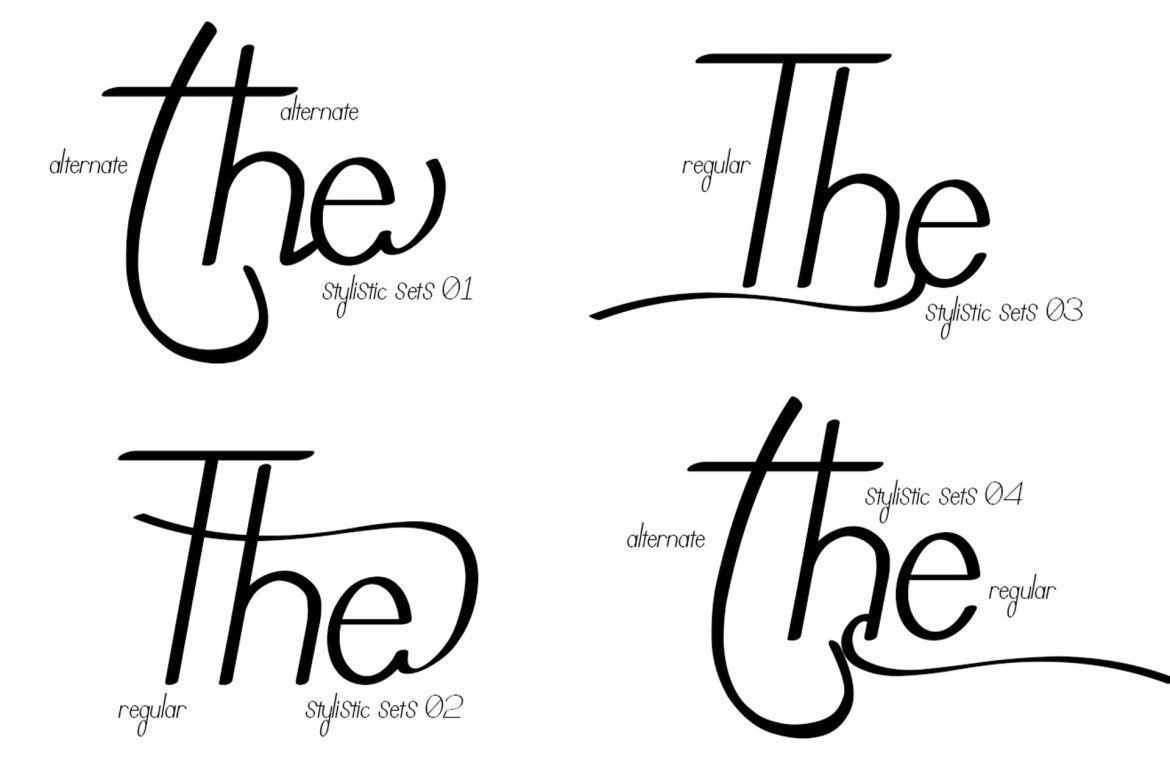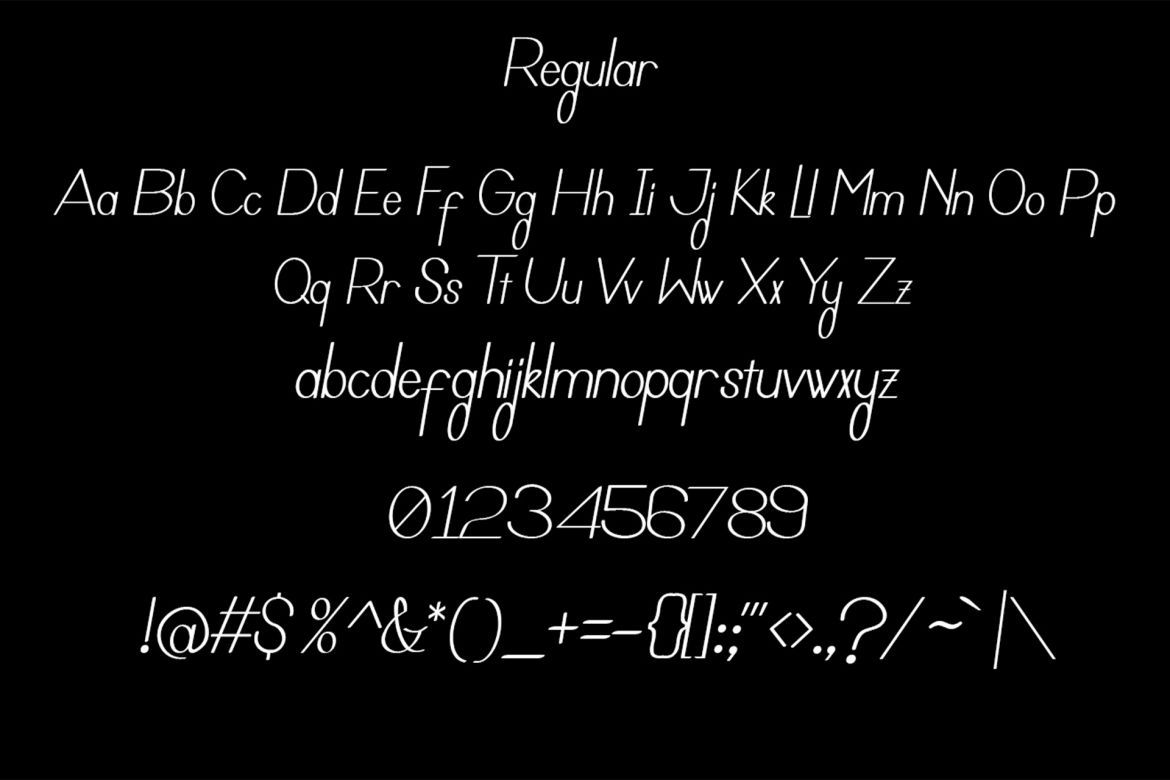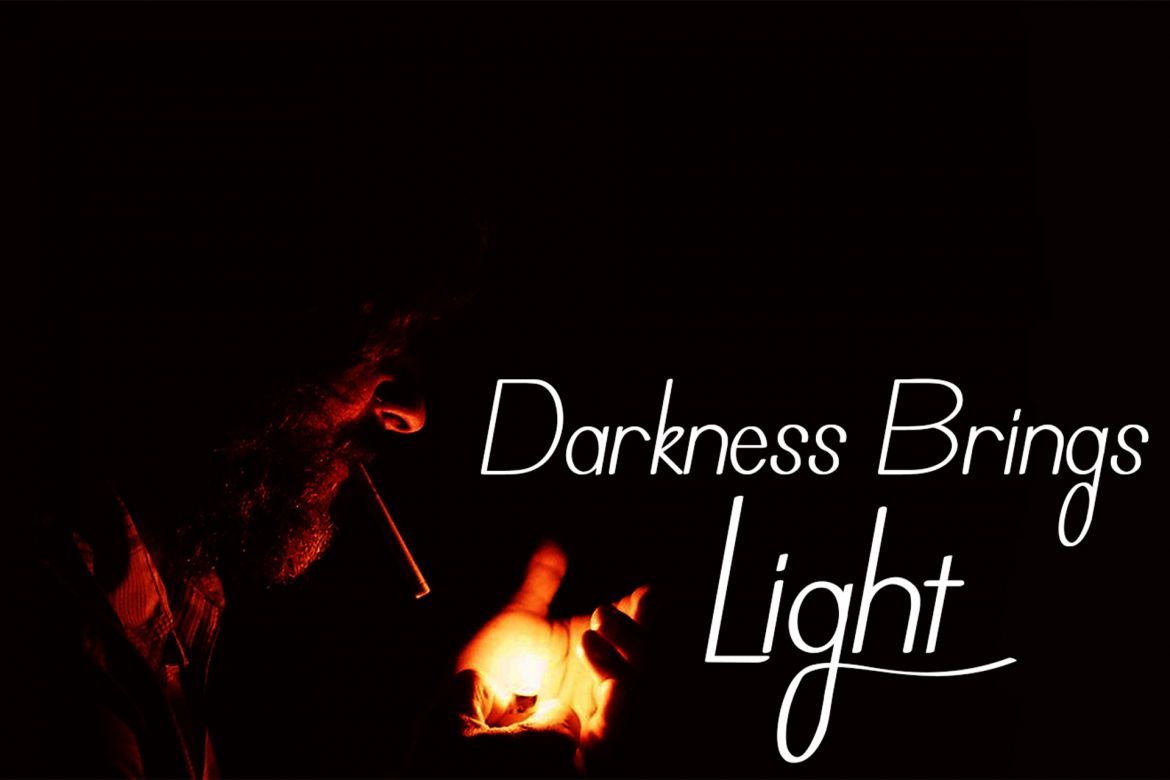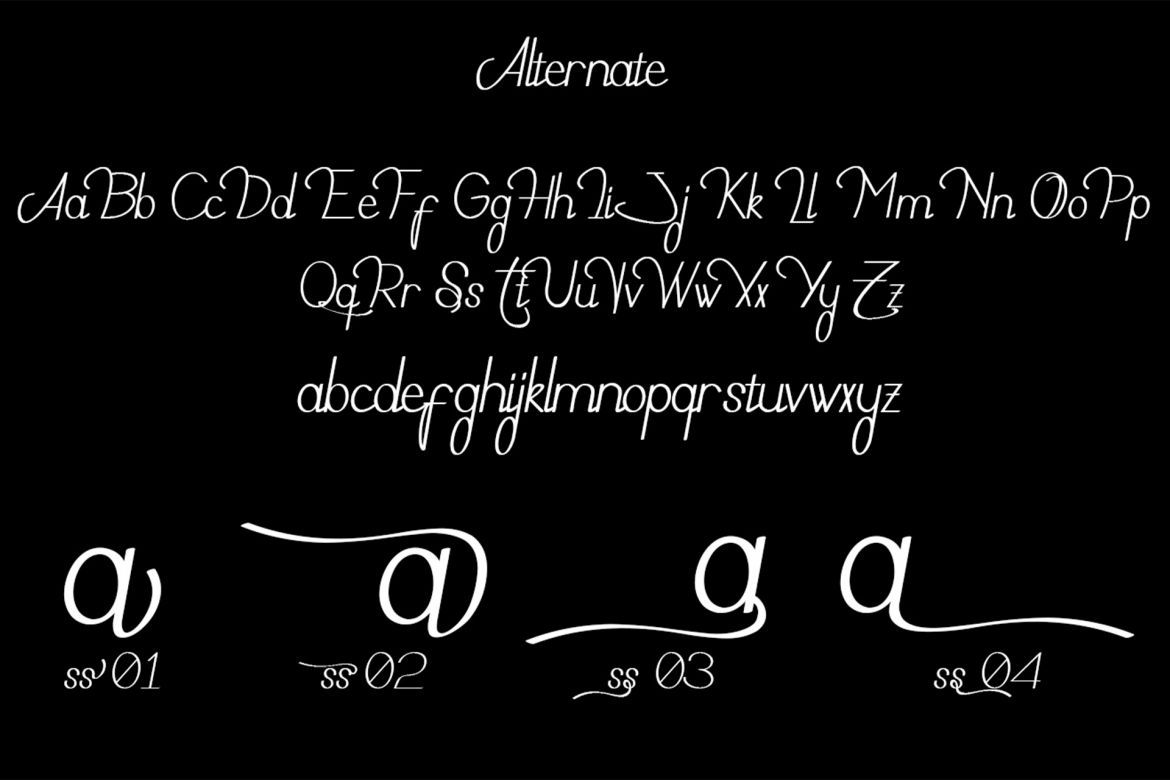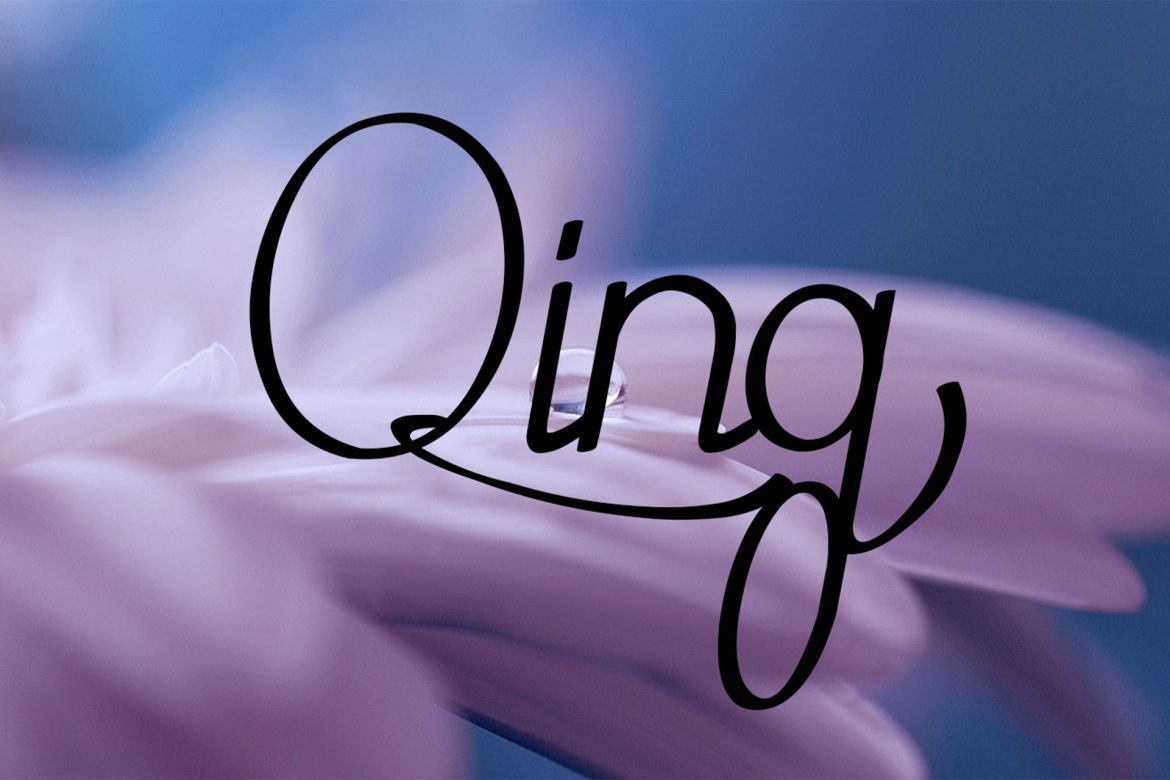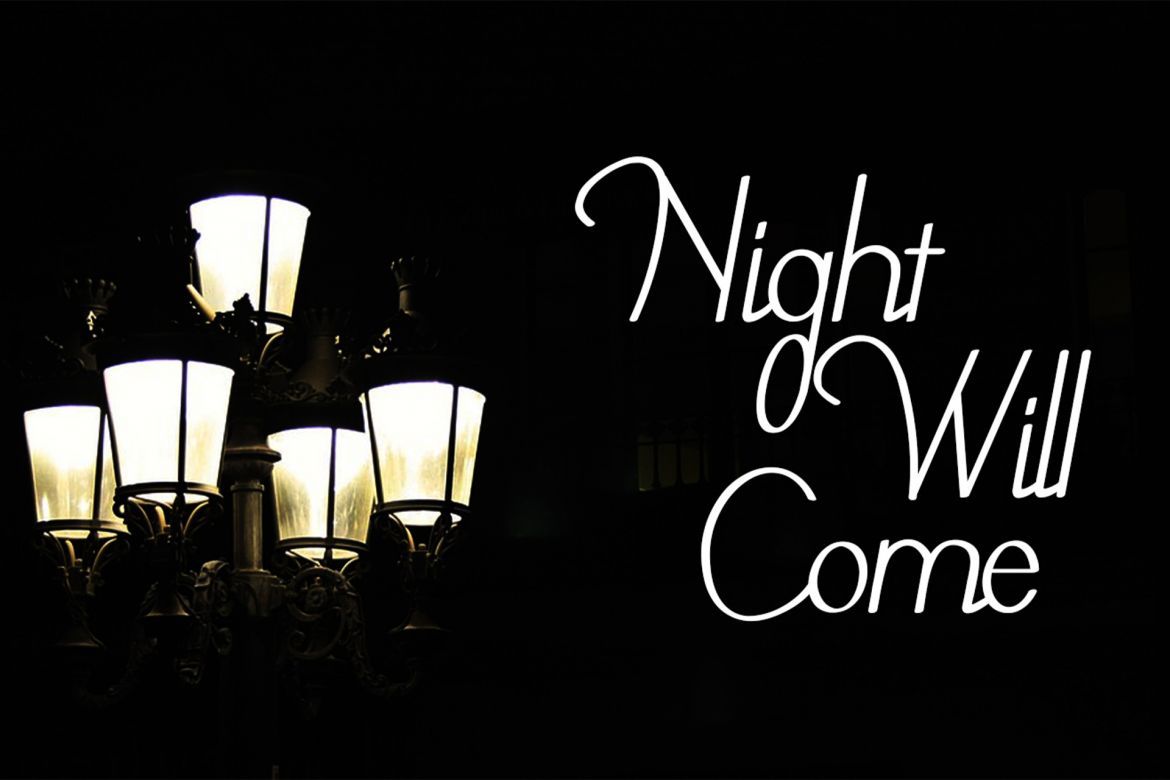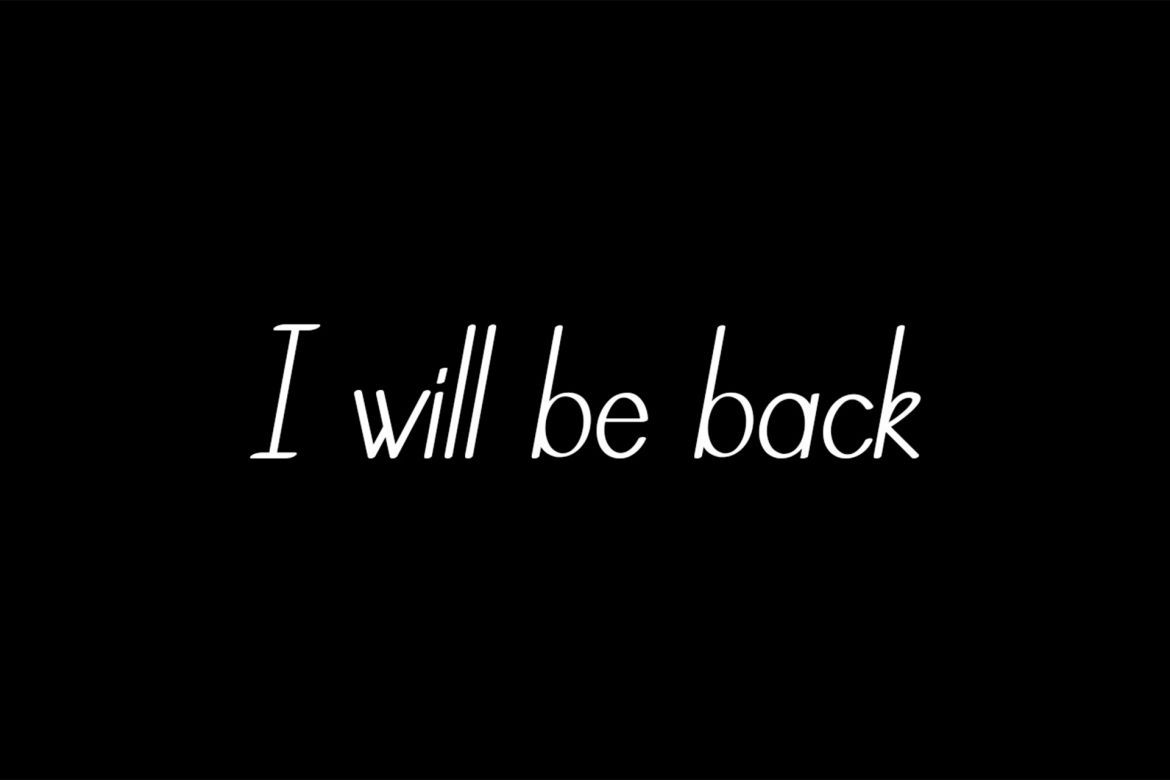
Qing Display Font
Qing is an elegant font with a variety of alternative style choices. simple but serious, for office events, magazines, websites, invitations, business cards, and others. please download and enjoy. Equipped with font:
• Uppercase
• Lowercase
• numbers
• alternates
• stylistic set